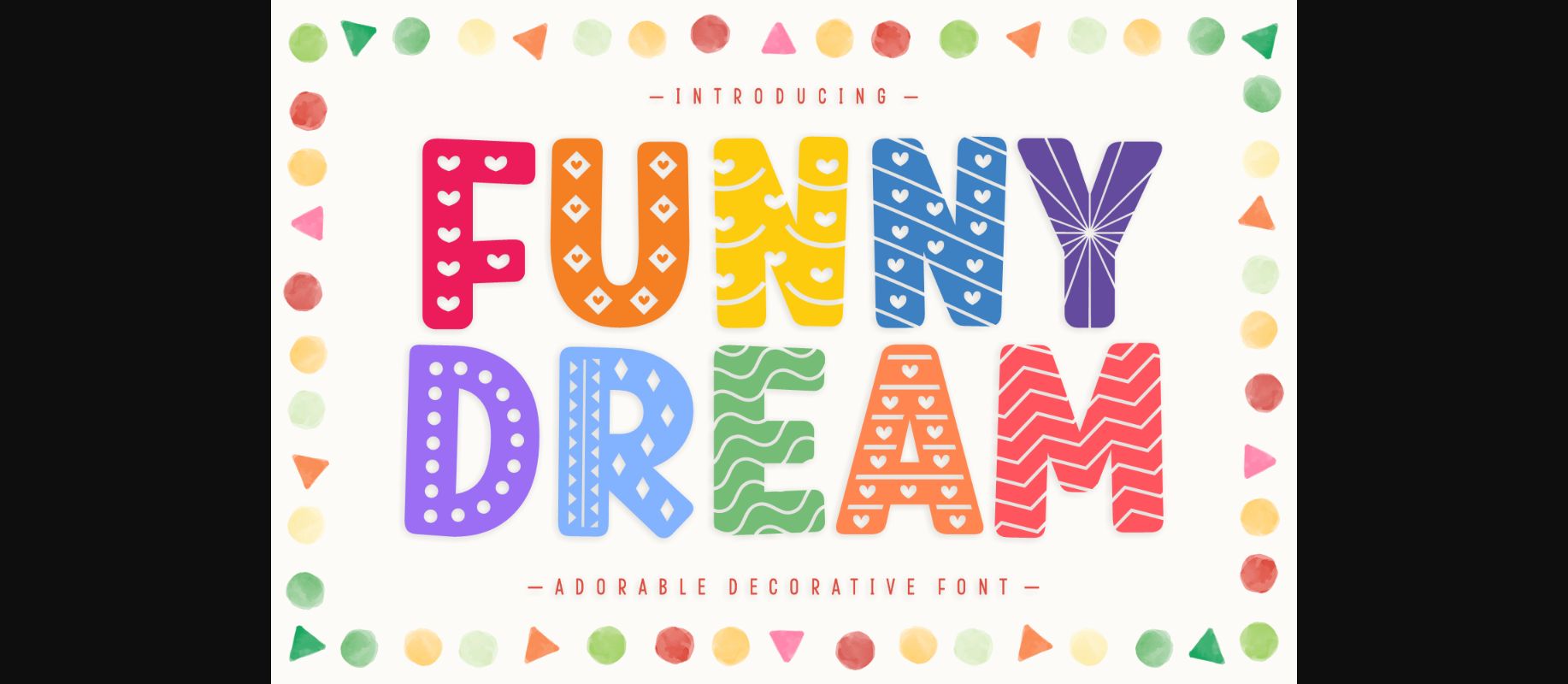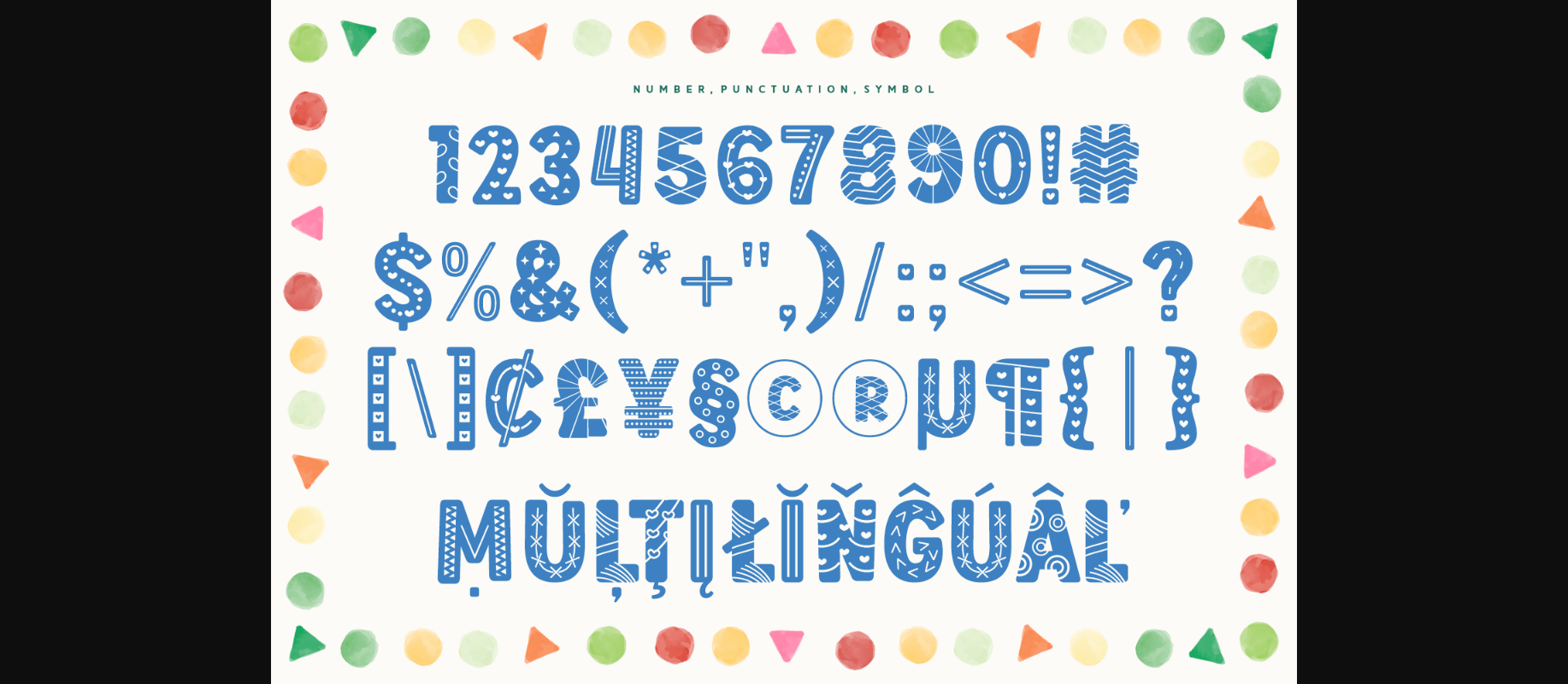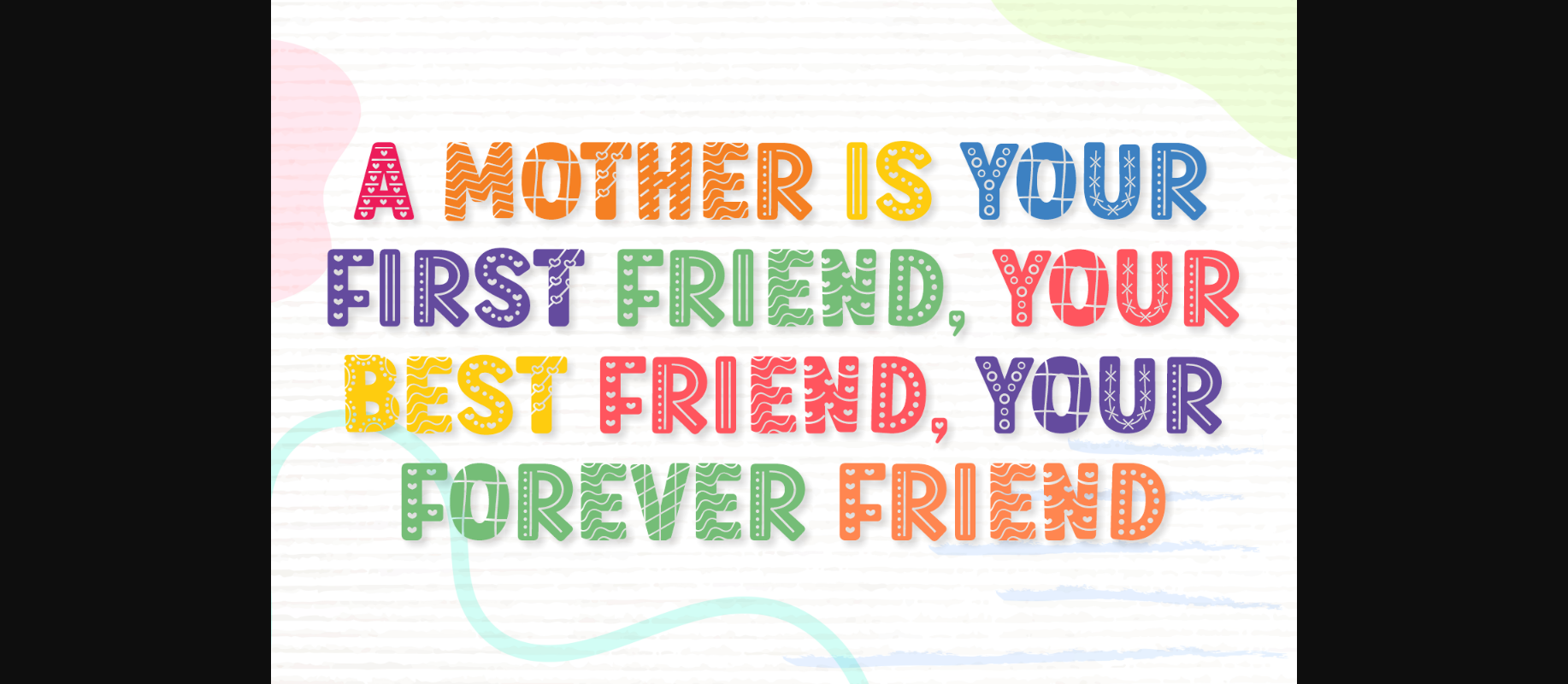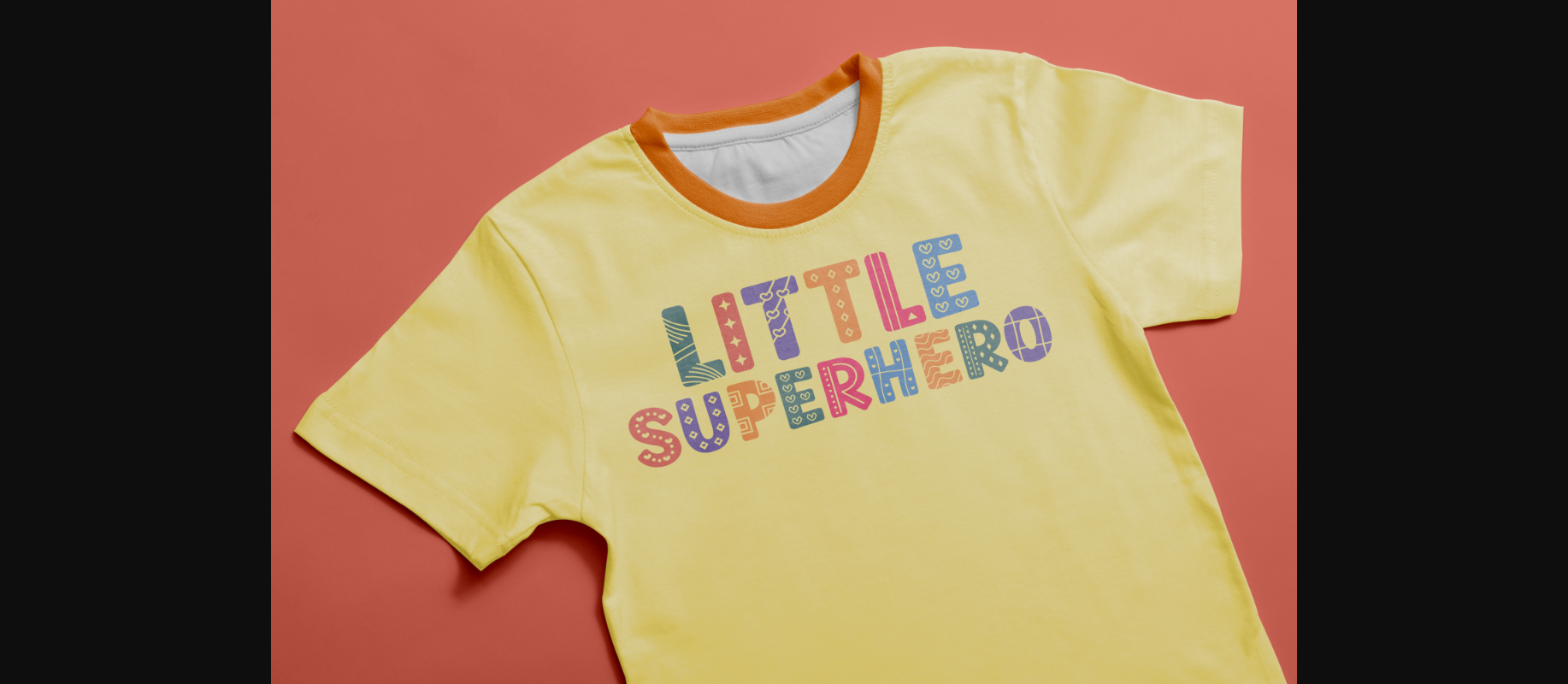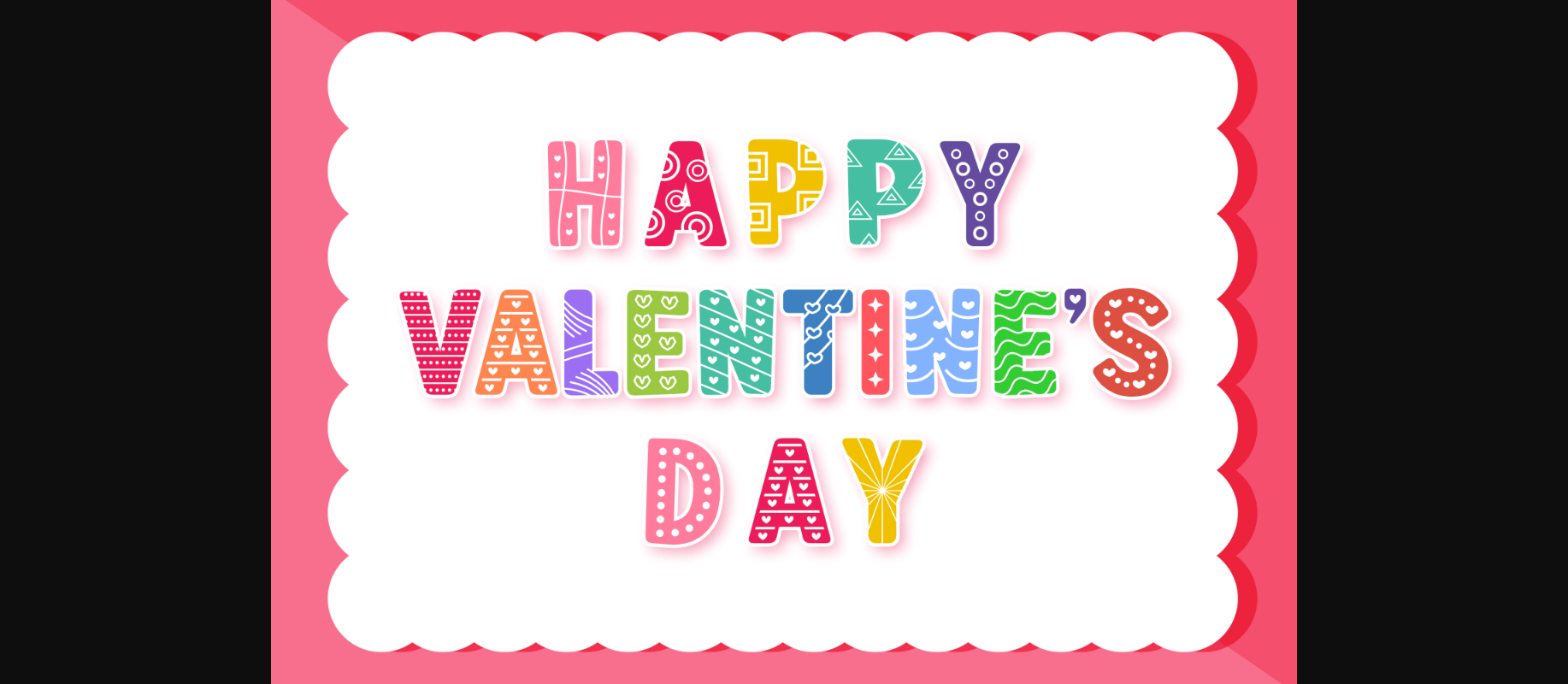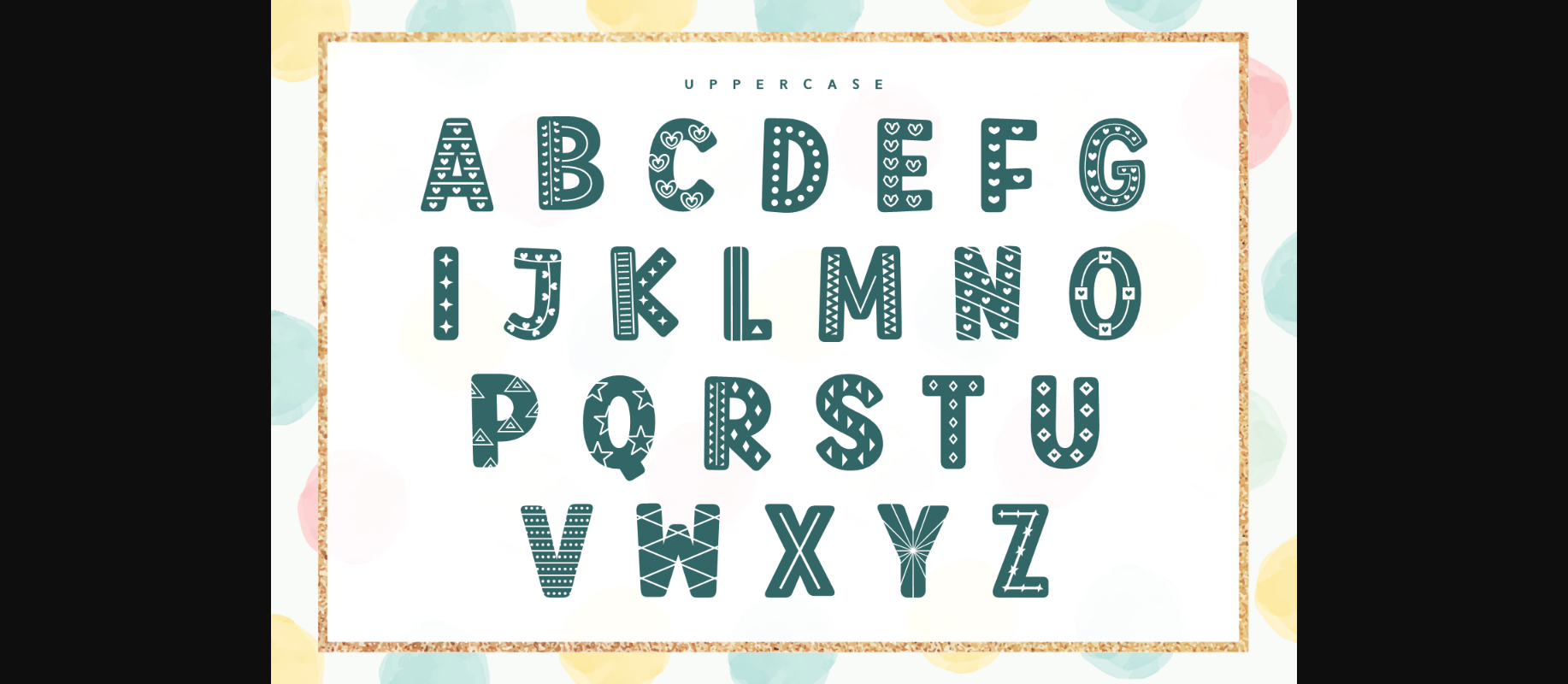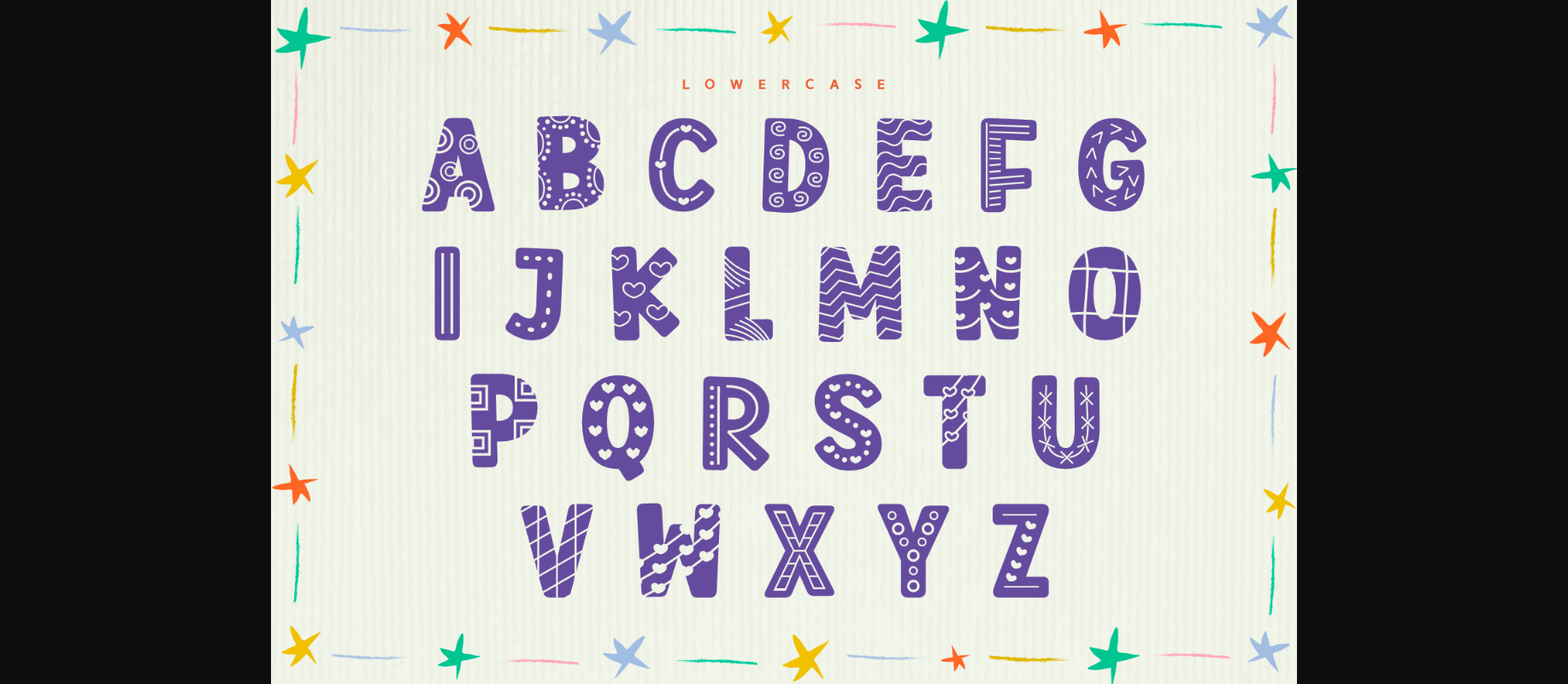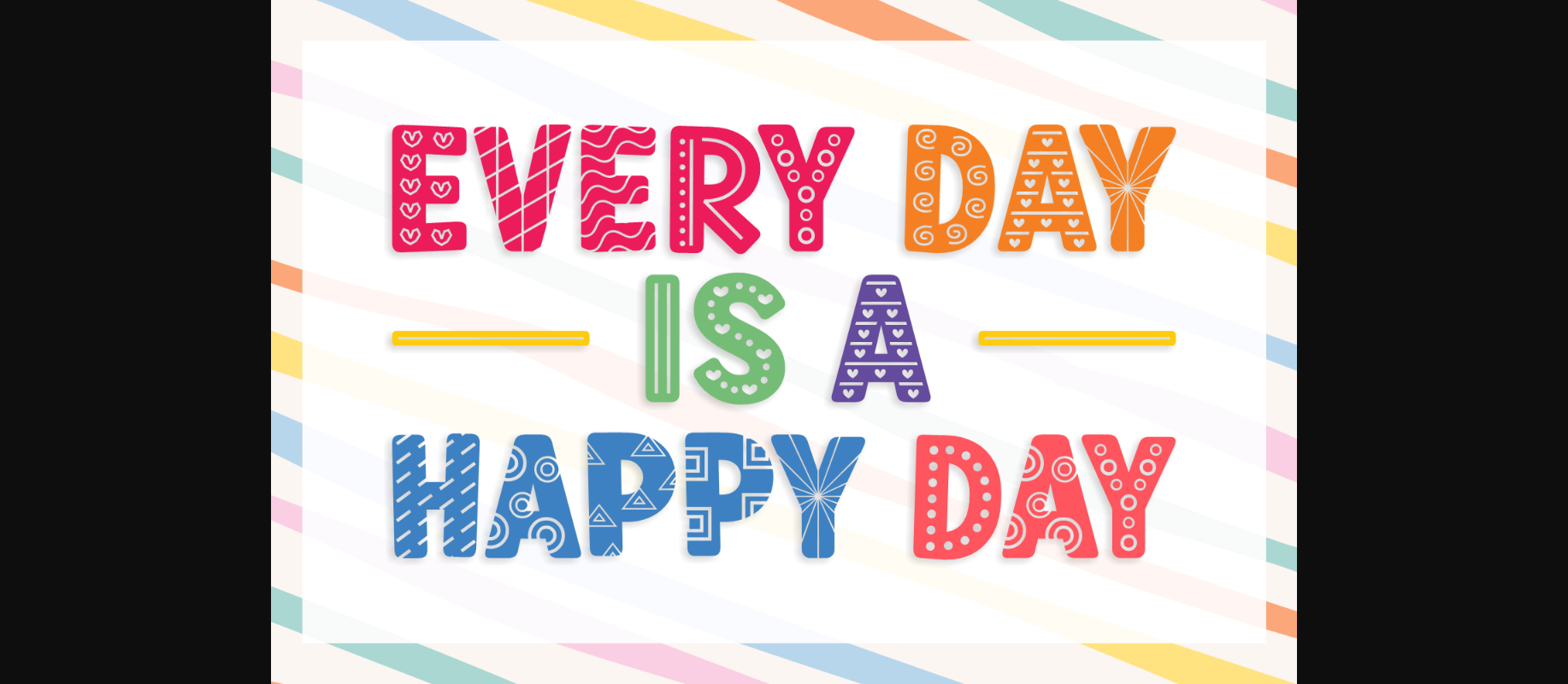
HomeDecorative FontsFunny Dream Font Decorative Fonts Funny Dream Font FacebookXPinterestWhatsApp 1 of 10 ... Funny Dream Font Poster 2... Funny Dream Font Poster 3... Funny Dream Font Poster 4... Funny Dream Font Poster 5... Funny Dream Font Poster 6... Funny Dream Font Poster 7... Funny Dream Font Poster 8... Funny Dream Font Poster 9... Funny Dream Font Poster 10... About Funny Dream Font Funny Dream is a cute, friendly, and incredibly versatile decorative font. Its cheerful and positive vibe, will definitely brighten up each of your designs! DOWNLOAD NOW People also explored Amrina Balibold Font Sweet Ball Font Neutral Light Font Clement Times Font Gosten Font Amsterdam Font Babe Letter Font Rykes Font 269 0 TagsFunny Dream Font Previous articleChristmas Reindeer FontNext articleGift Font LEAVE A REPLY Cancel reply Comment: Please enter your comment! Name:* Please enter your name here Email:* You have entered an incorrect email address! Please enter your email address here Website: Save my name, email, and website in this browser for the next time I comment. Personal Use Free Consequences Personal Use Free Read more about this font Crayones Personal Use Free Read more about this font Sabina Illusion Personal Use Free Read more about this font Borg Personal Use Free Read more about this font BLOG Free Fonts Risk: Why Free Fonts Can Be Dangerous for Designers Free Fonts Risk: Why Free Fonts Can Be Dangerous for Designers Using free fonts is a common practice in web and graphic design. However, the... Exploring Font Trends Using Fonts in Digital Marketing: Tips to Strengthen Your Brand Identity Top 10 Handwritten Fonts That Elevate Your Designs